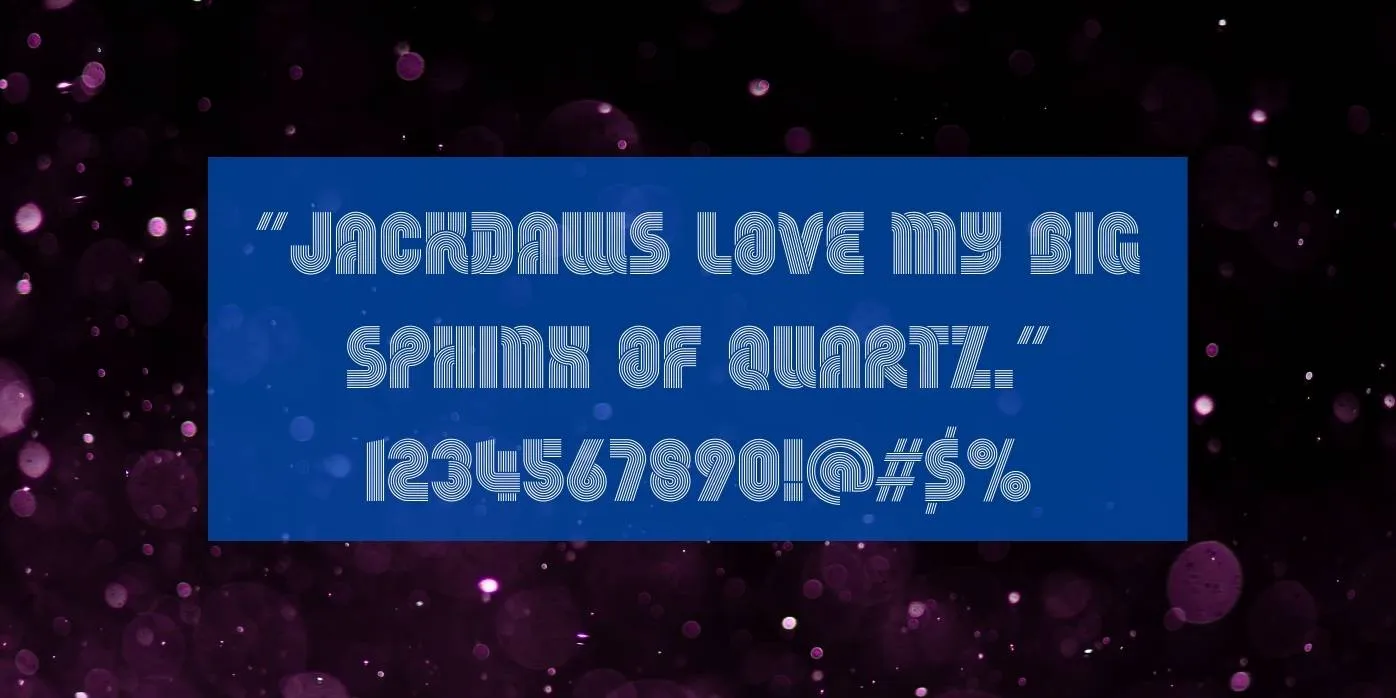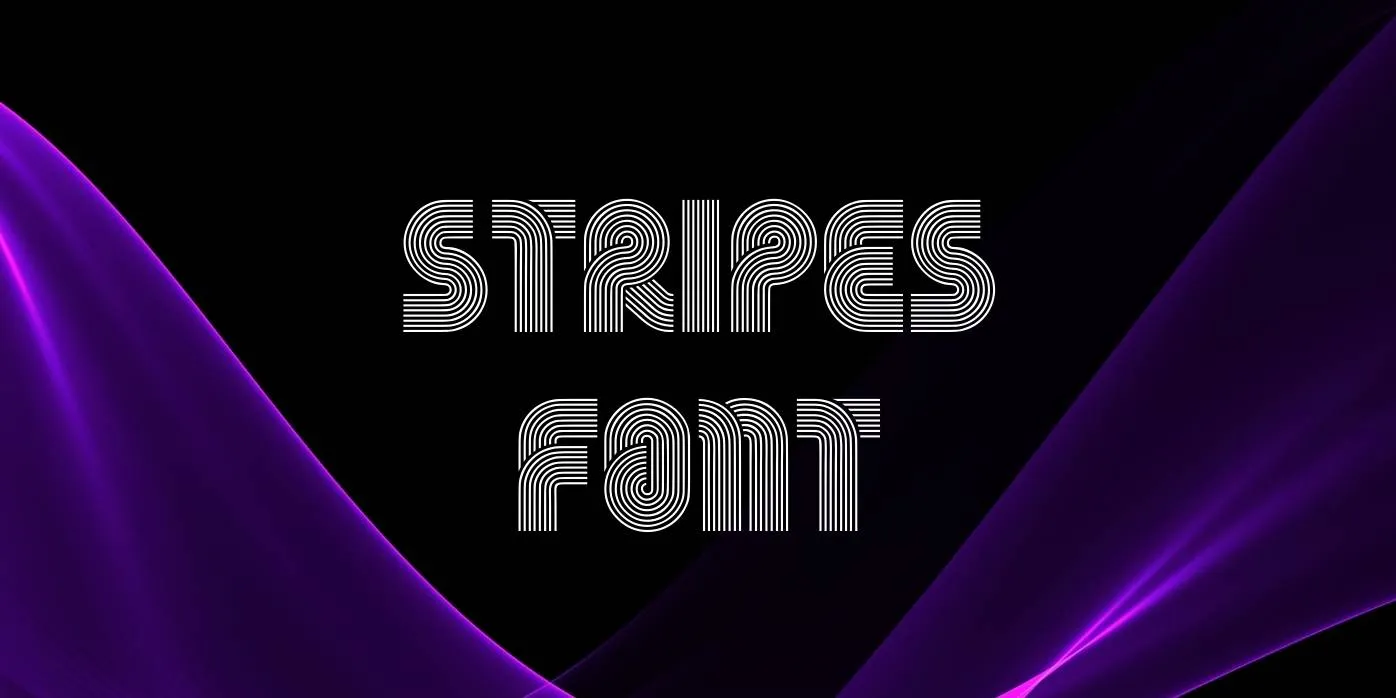
Stripes Font
In this post, we present Stripes Font which belongs to the display family. This typeface was designed by  Yaroslava Gehrig and published by Fontfabric. Stripes Font has available in four weights (Regular, Light, Medium, Bold) with matching italics, which contains uppercase and lowercase letters, numerals, and symbols. You can use this font for various purposes such as headlines, logos, posters, packaging, and t-shirts.
This font is a display typeface with a vintage feel. It is perfect for creating retro-style designs. The font includes upper and lowercase letters, numerals, and symbols.